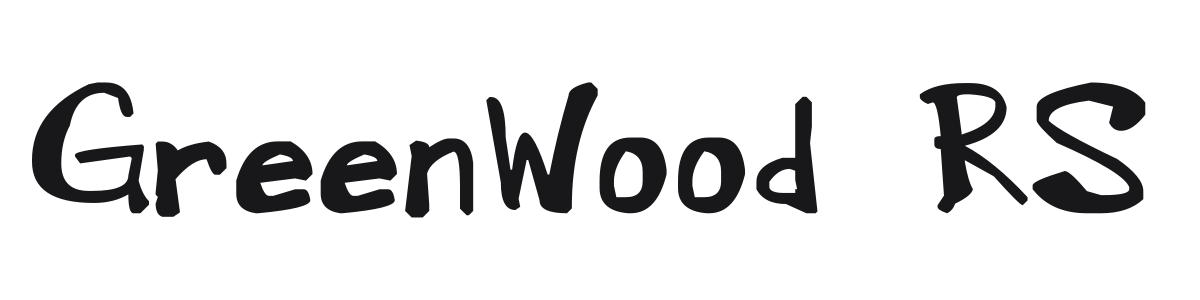
GreenWood RS
by James Greenwood
GreenWood RS is a thick, casual handwritten face by James Greenwood with the unmistakable look of a broad-tipped marker pressed firmly to paper. The bold strokes feel loose and confident, giving it a playful energy that works well in headlines, posters, and informal branding where you want something that reads as human and unscripted. The weight keeps it punchy even at smaller display sizes.